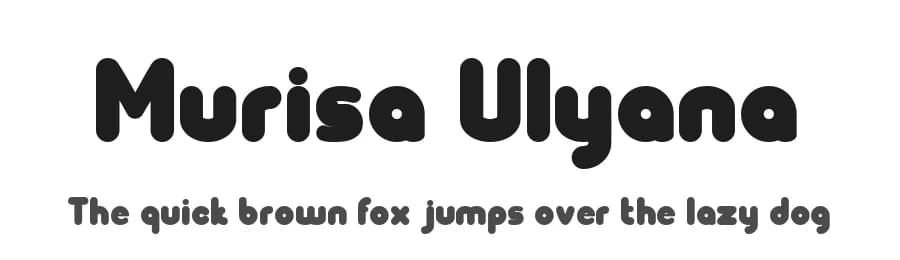
About Murisa Ulyana Font
we would like to introduce one new font which we have released in this march. Murisa Ulyana is our newest font. Still inspired by the oval shape, this font is very cute and eye-catching. It is very fitting if you use it for designs that are cheerful and happy. You can also use it for baby and children's product names. Get it right now.
Murisa Ulyana Font